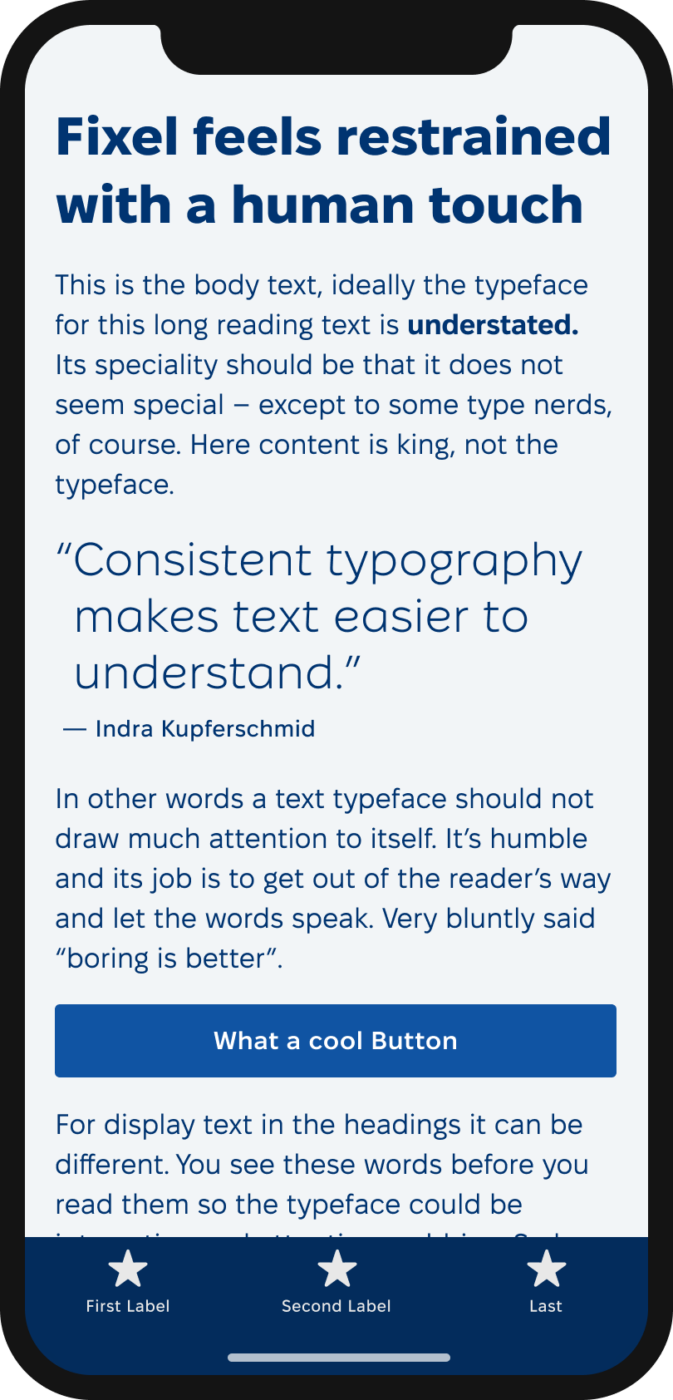
Sans-Serif typeface
by AlphaBravo for MacPaw
designed by Marcela Mozhina, Serhiy Makarenko
Variable Font
2 axes: weight & width
18 Styles
9 weights: Thin to Black
Text and Display
Best for
- Headings (display text)
- Long reading text (body text)
- User Interfaces (functional text)
Specialty
A shape-shifter between styles. This free sans-serif font is sober at its core, friendly in its appearance and clean in any application.
My thoughts on Fixel
The free sans-serif typeface Fixel lives between styles and is quite adaptable. It has very even strokes, is clean and unobtrusive, in a sense neutral but never boring or cold.
It claims to be a “grotesque with a human touch”, but what does this actually mean? When comparing it to popular grotesque typefaces like Helvetica, you can see that letters are more open. Everything is a bit more rounded, the curves are softer. The spacing and proportions are a bit wider too, giving Fixel even a slight geometric touch, confirmed by the almost circular o and e.
One highlight of this typeface are the stylistic alternates, which move Fixel into a totally different direction. With the single-story a, the f with a descender, and the playfully bent stem of the t, it almost looks like an upright italic. Does this remind you of a strict version of Bree, too? This makes the alternates a welcomed addition for attention grabbing display text.
Overall, Fixel is a smart choice for copy, UI design, and bold headlines as well. It is available in Latin and Cyrillic script and was made for the software company MacPaw, which also created the beautiful microsite showing all of Fixel’s features.